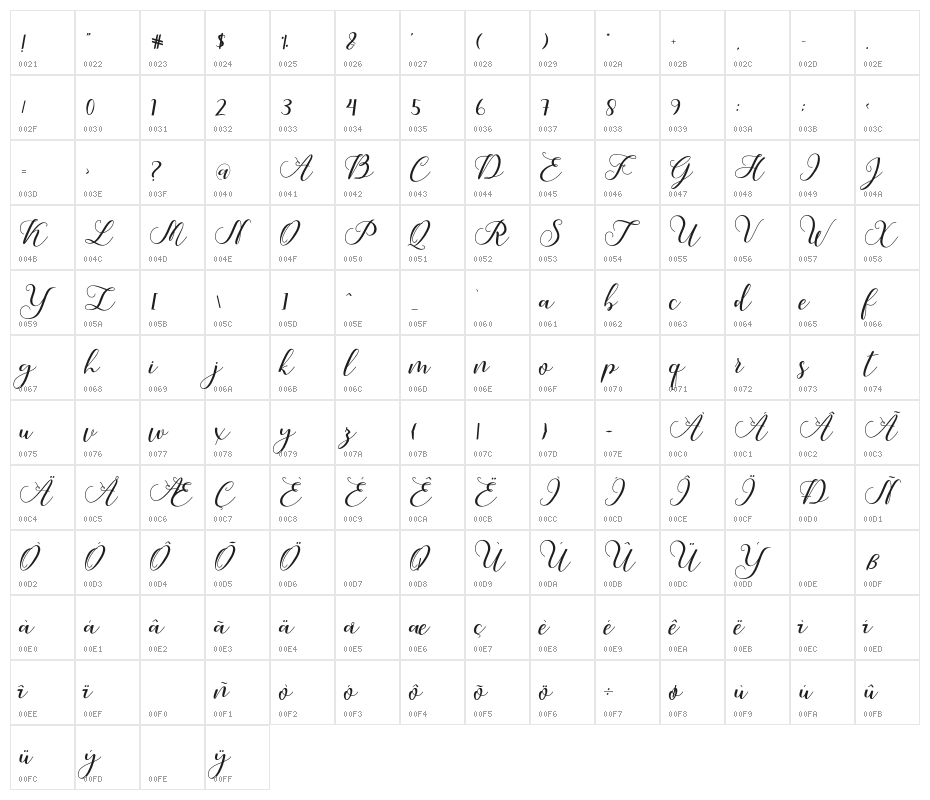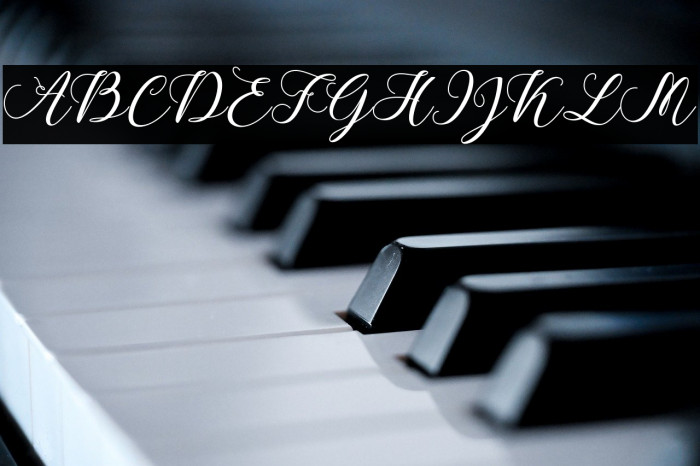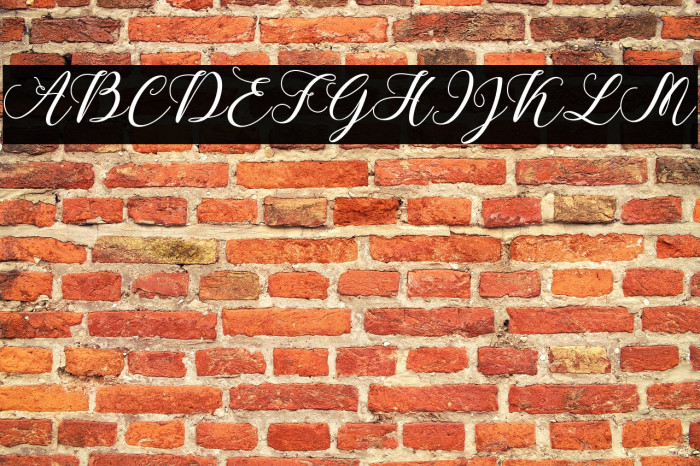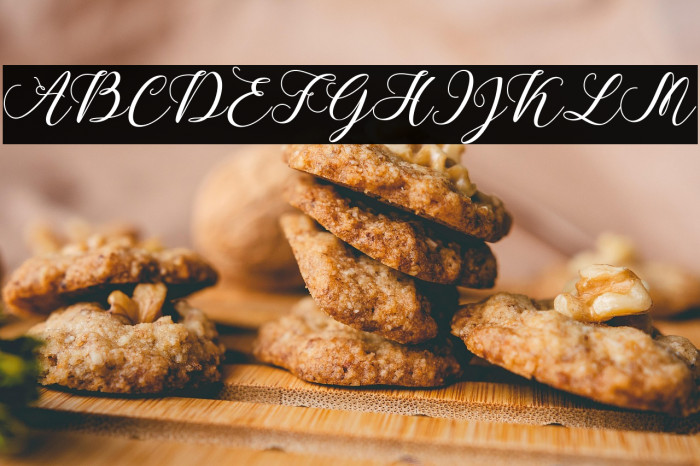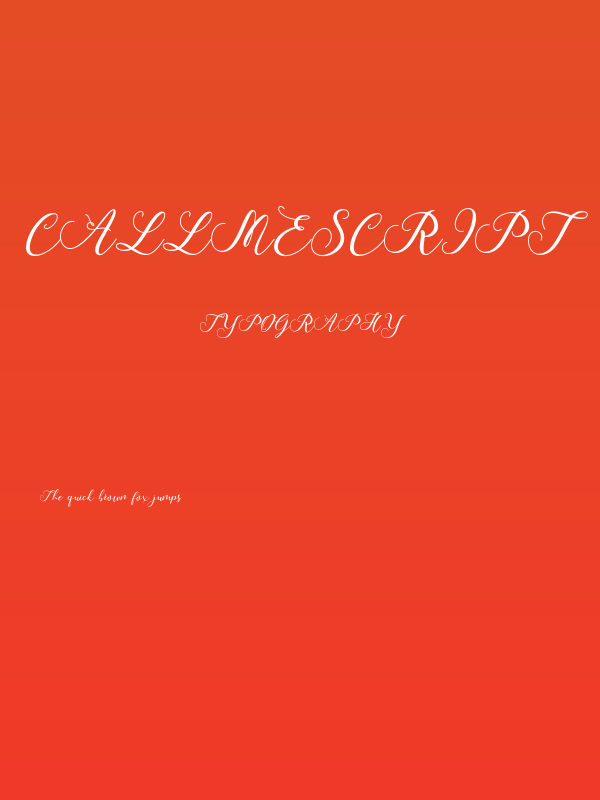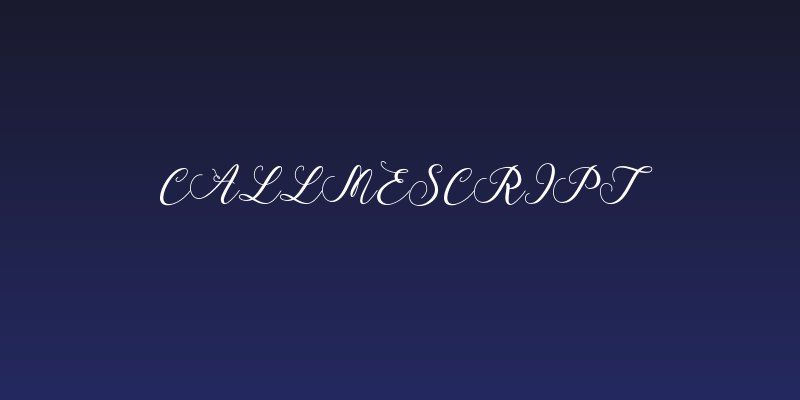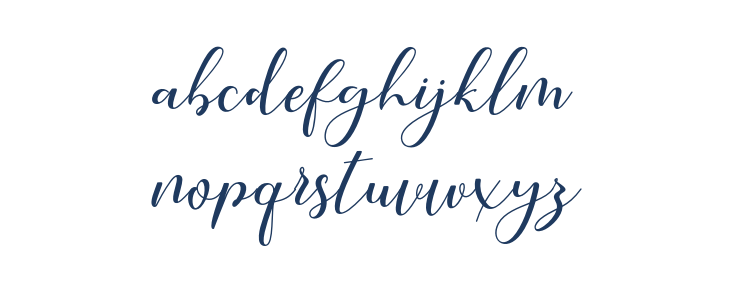
CallmeScript Font
CallmeScript Description
This elegant script font features flowing, interconnected letters that mimic the fluidity of cursive handwriting. The uppercase letters are ornate with delicate swirls and loops, while the lowercase letters maintain a graceful continuity. The numerals are clear and slightly more structured, providing a nice contrast to the script style. Special characters are thoughtfully designed to match the overall aesthetic, ensuring a cohesive look. The font's design is both sophisticated and approachable, making it suitable for a variety of creative projects.
| Overall Style | Elegant |